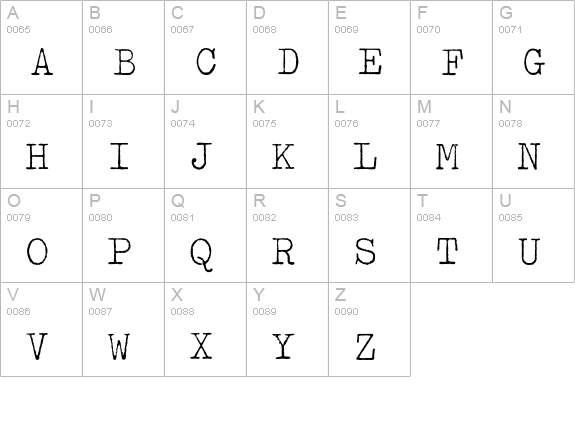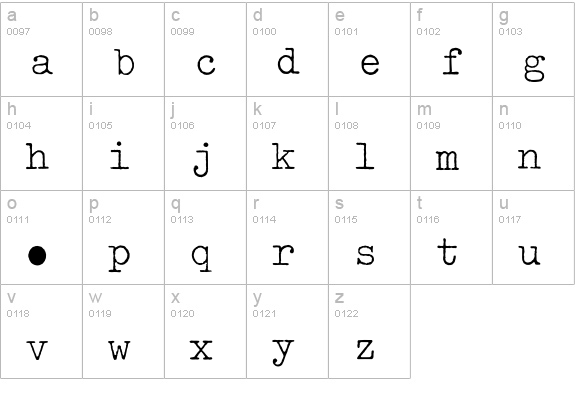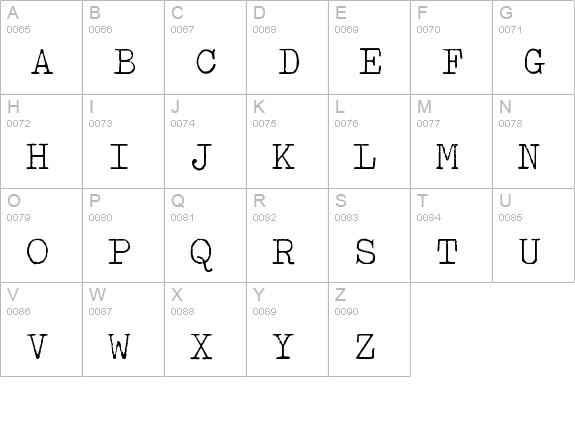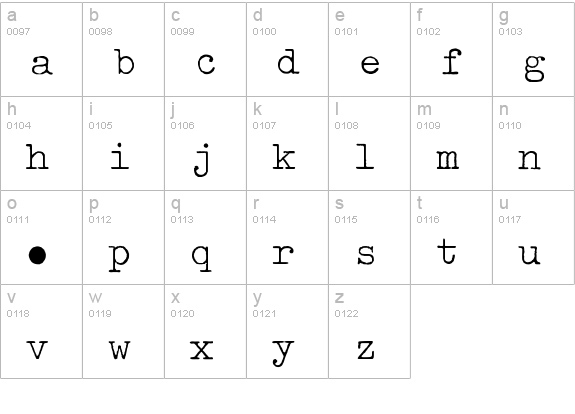
OldTypewriterEF-Light is a refined, elegant variant in the OldTypewriterEF typeface family \xE2\x80\x94 well suited to elegant body text, refined sub-headings, and luxury branding.
OldTypewriterEF-Light is a charming and nostalgic font that evokes the aesthetics of vintage typewriters. Its delicate and elegant design captures the essence of a bygone era, perfect for adding a touch of classic sophistication to your projects. The light weight of this font gives it a subtle and airy look, making it versatile for a wide range of design purposes. Best of all, OldTypewriterEF-Light is available for free download at FontsMarket.com, allowing you to easily incorporate this timeless font into your creations without any cost. Whether you're working on a retro-themed project, crafting invitations with a vintage appeal, or simply looking to add a unique touch to your designs, OldTypewriterEF-Light is a fantastic choice that combines style and accessibility. Download it today and bring a piece of typewriter charm to your designs.